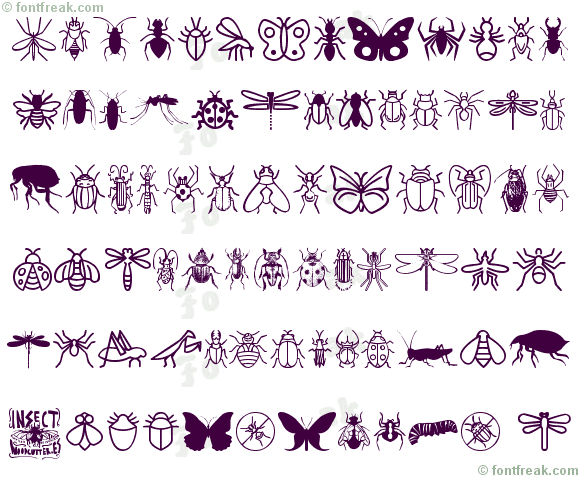
Insect Icons
About Insect Icons
The Insect Icons font by woodcutter Manero is a captivating collection of decorative dingbats that creatively showcases various insect forms. This unique typeface stands out with its intricate designs and whimsical styling, making it an excellent choice for projects that require a touch of nature-inspired artistry. The visual characteristics of the font include a bold stroke weight and consistent spacing, allowing the delicate details of each insect to shine without overwhelming the viewer. The playful yet structured designs evoke a sense of curiosity and wonder, perfect for grabbing attention.
This font is ideal for a variety of use cases, including children's book illustrations, where the cheerful insect designs can enhance storytelling and engage young readers. It also works wonderfully for nature-themed event invitations, such as garden parties or eco-friendly weddings, adding a delightful charm to the overall aesthetic. Additionally, the Insect Icons font can be effectively utilized in educational materials, particularly for teaching about insects and biodiversity, making learning more visually appealing. Graphic designers and content creators will find this font particularly useful for creating unique social media graphics, where the distinctive icons can help convey messages in a fun and eye-catching manner.